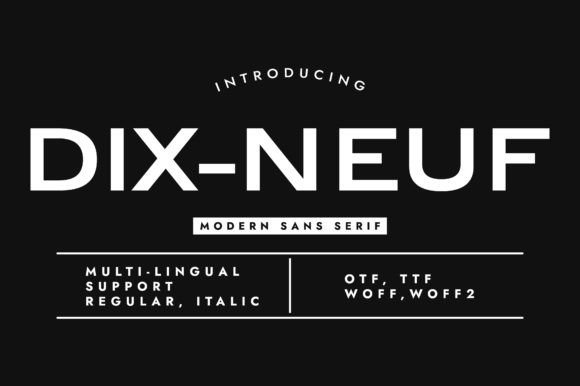
Unleash the Power of Typography with Dix-Neuf: A Sans Serif Masterpiece
In the realm of design, fonts hold the key to unlocking a world of expression and communication. They have the power to transform ordinary words into captivating messages, elevate brands to new heights, and create a lasting impression on your audience. Among the vast array of fonts, Dix-Neuf stands out as a true gem, a sans serif masterpiece that will captivate your senses.
With its clean lines, geometric precision, and minimalist aesthetic, Dix-Neuf exudes an air of sophistication and modernity. Its versatility knows no bounds, making it the perfect choice for a wide range of design projects. Whether you're crafting captivating logos, creating eye-catching branding materials, designing elegant packaging, or engaging social media posts, Dix-Neuf will add a touch of brilliance to your creations.
Imagine your brand's logo adorned with the sleek and stylish characters of Dix-Neuf, instantly grabbing attention and leaving a lasting impression on your customers. Envision your branding materials radiating with a cohesive and sophisticated aesthetic, thanks to the versatility of this remarkable font. Picture your products adorned with labels featuring Dix-Neuf, transforming them into works of art that demand attention on store shelves.
With Dix-Neuf, the possibilities are endless. Unleash your creativity and let the beauty of this font elevate your designs to new heights. Embrace the power of typography and watch as your creations come alive, captivating audiences and leaving an unforgettable mark.